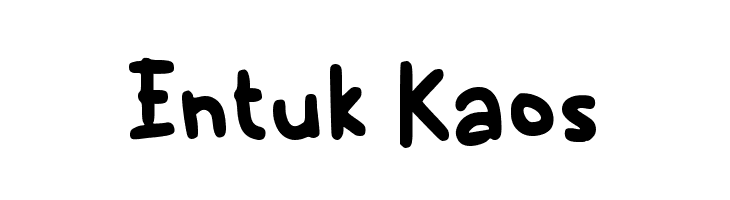
A diverse set of decorative arrows in multiple hand-drawn and graphic styles.
A playful, hand-drawn font with bold, uneven strokes and a whimsical charm.
An elegant, thin italic serif font with a refined and sophisticated style.
An elegant, ornate script font inspired by 18th-century handwriting.
A sleek, modern font with a thin, linear structure and uniform spacing.
A futuristic, dot-connected font with a tech-inspired design.
A bold, serif font with strong strokes and classic elegance.
A futuristic, geometric font with a double-line structure and modern appeal.